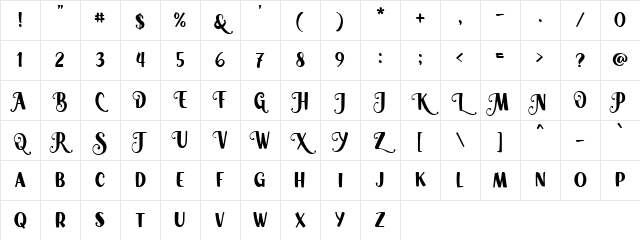
Complete Beauty Florist Regular glyph index. Displaying only characters natively supported by Beauty Florist Regular font.
Beauty Florist is a composed and adaptable typeface that performs quietly and consistently across a wide range of design contexts.